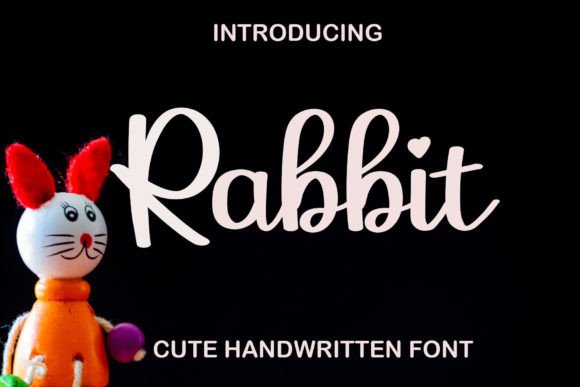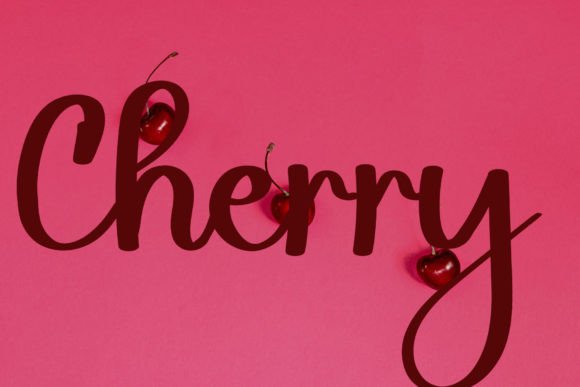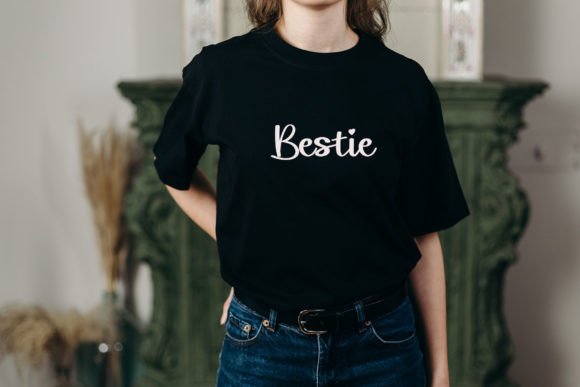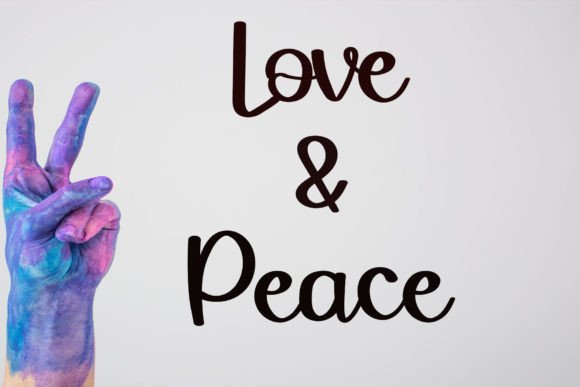
Rabbit Font
About Rabbit Font
**Rabbit: A Playful and Relaxed Handwritten Font for Children’s Brands**
Rabbit is a playful handwritten font with a slightly thick monoline style that exudes a casual and relaxed nature. This font is particularly well-suited for branding products aimed at children, including clothing, toys, books, and more.
The playful and informal design of Rabbit makes it an excellent choice for capturing the attention of young audiences. Its relaxed and friendly appearance conveys a sense of fun and approachability, which is ideal for children’s goods and products.
Whether you’re creating a logo for a children’s clothing line, designing packaging for toys, or crafting promotional materials for a kids’ brand, Rabbit’s playful handwritten characters will help you establish a connection with your target audience.
In summary, Rabbit is a delightful handwritten font that brings a playful and relaxed vibe to your designs. It’s perfect for branding children’s products and creating a warm and inviting atmosphere for your young customers. Choose Rabbit to infuse a sense of fun and friendliness into your children’s brand.